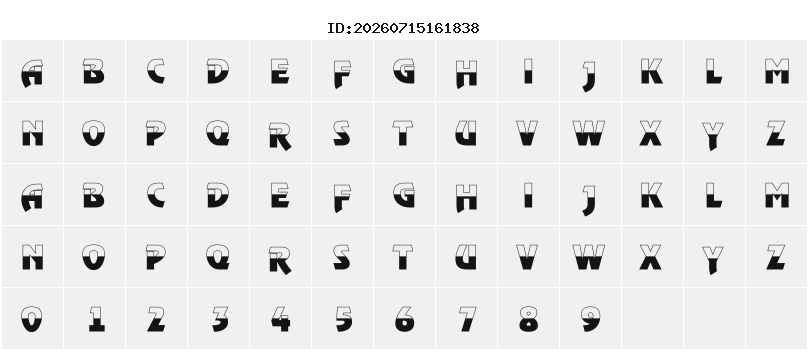
a_RewinderTitulBW Preview
• Font Name: a_RewinderTitulBW
• Full Font Name: a_RewinderTitulBW Bold
About a_RewinderTitulBW.ttf
a_RewinderTitulBW.ttf is a modern, elegant sans-serif font designed for ultimate readability and visual harmony. Perfect for branding, headlines, web design, and print materials.